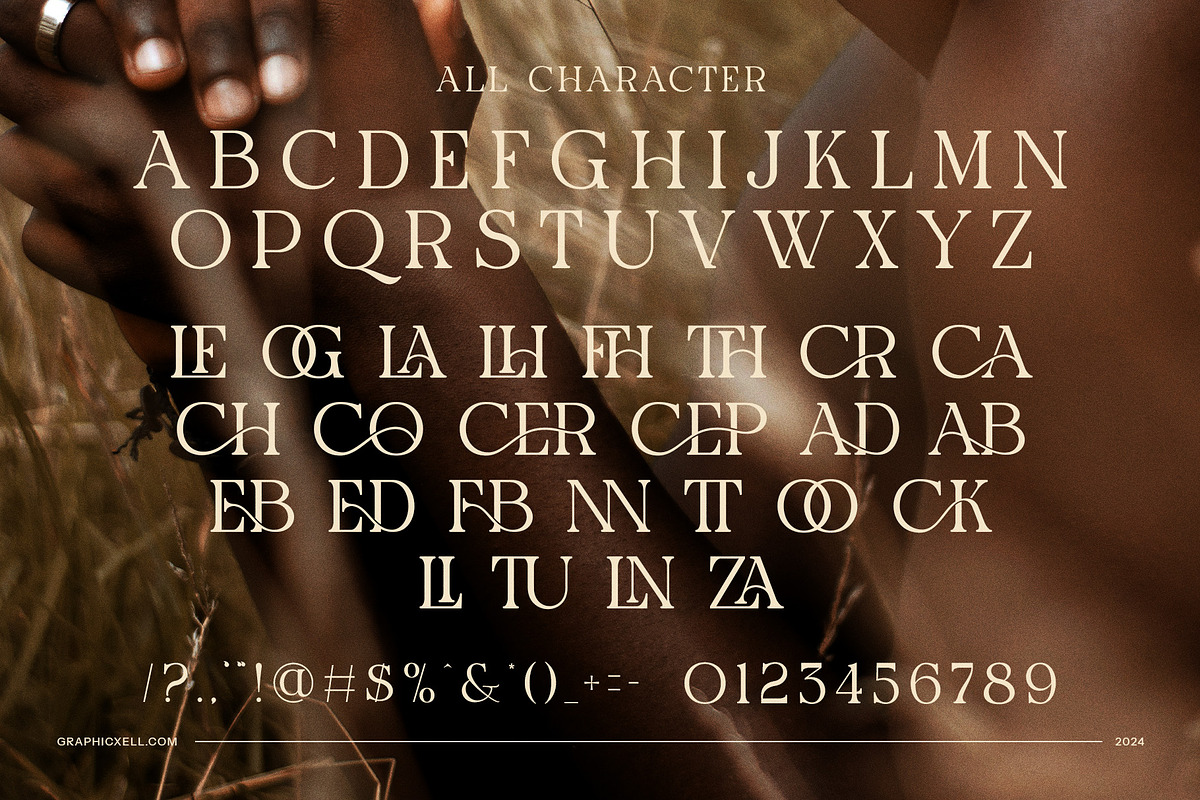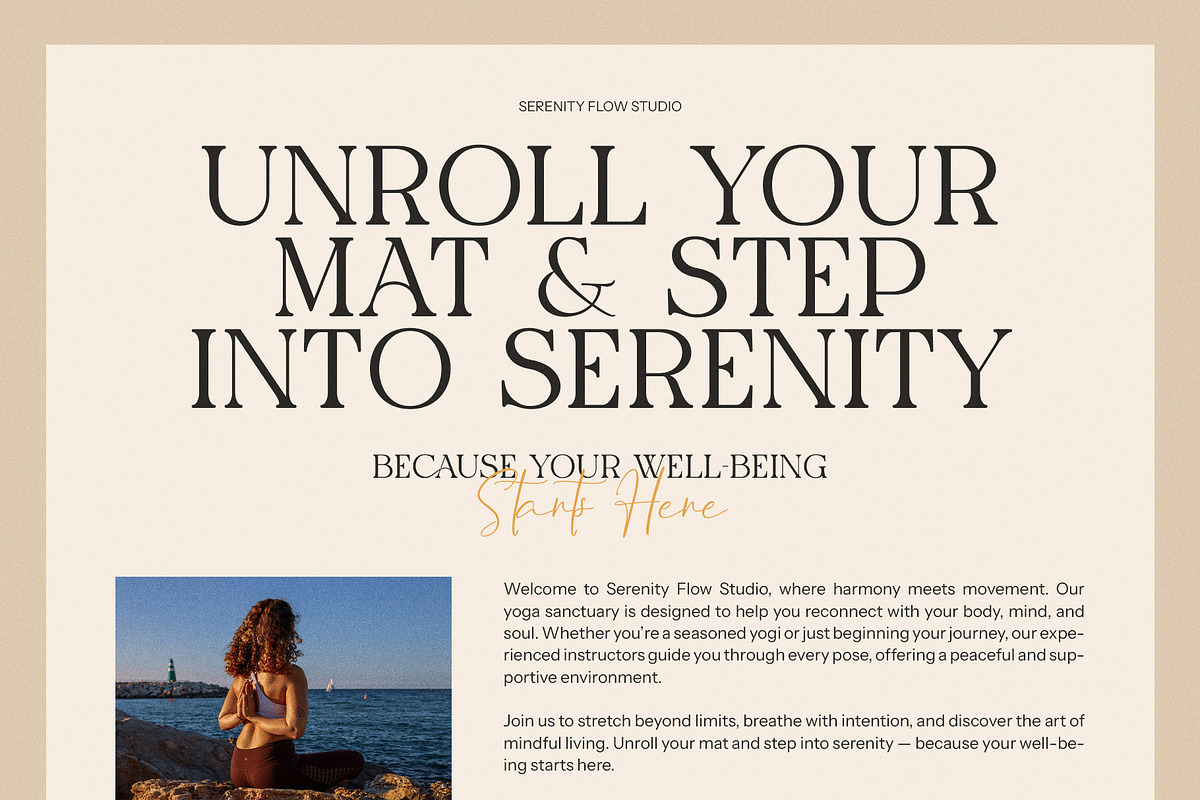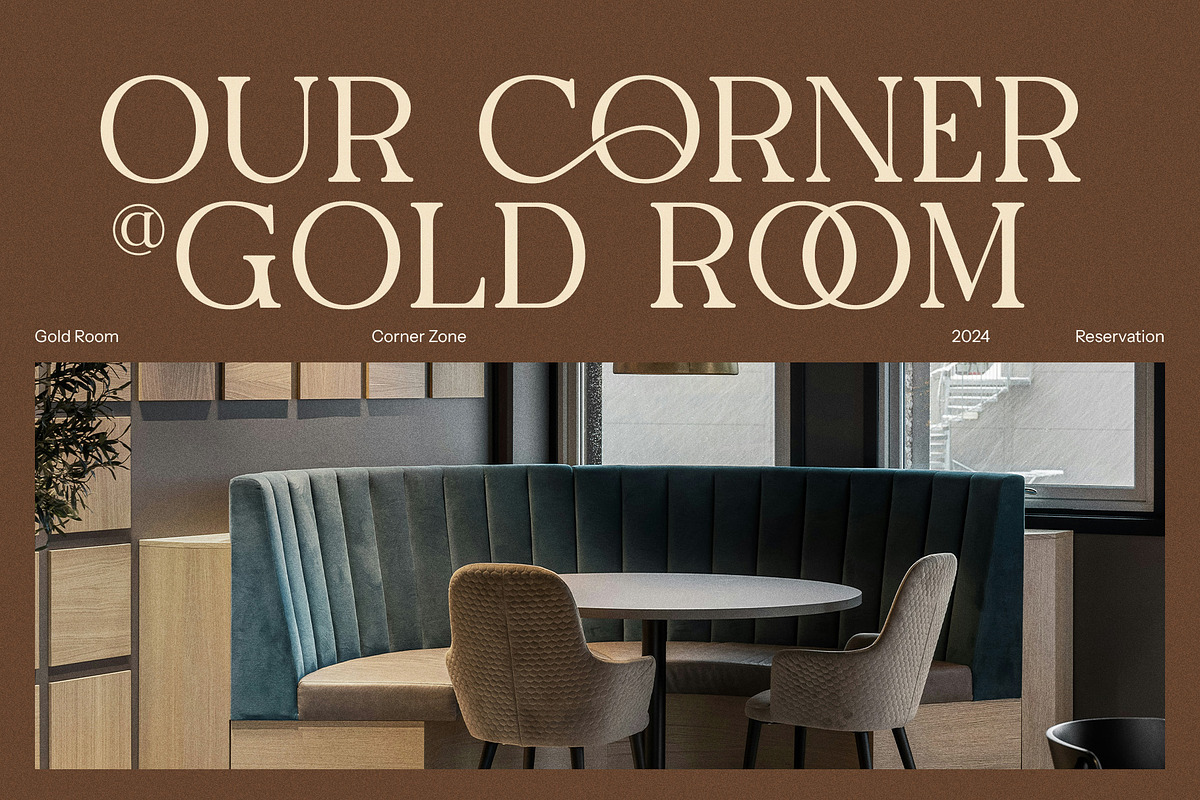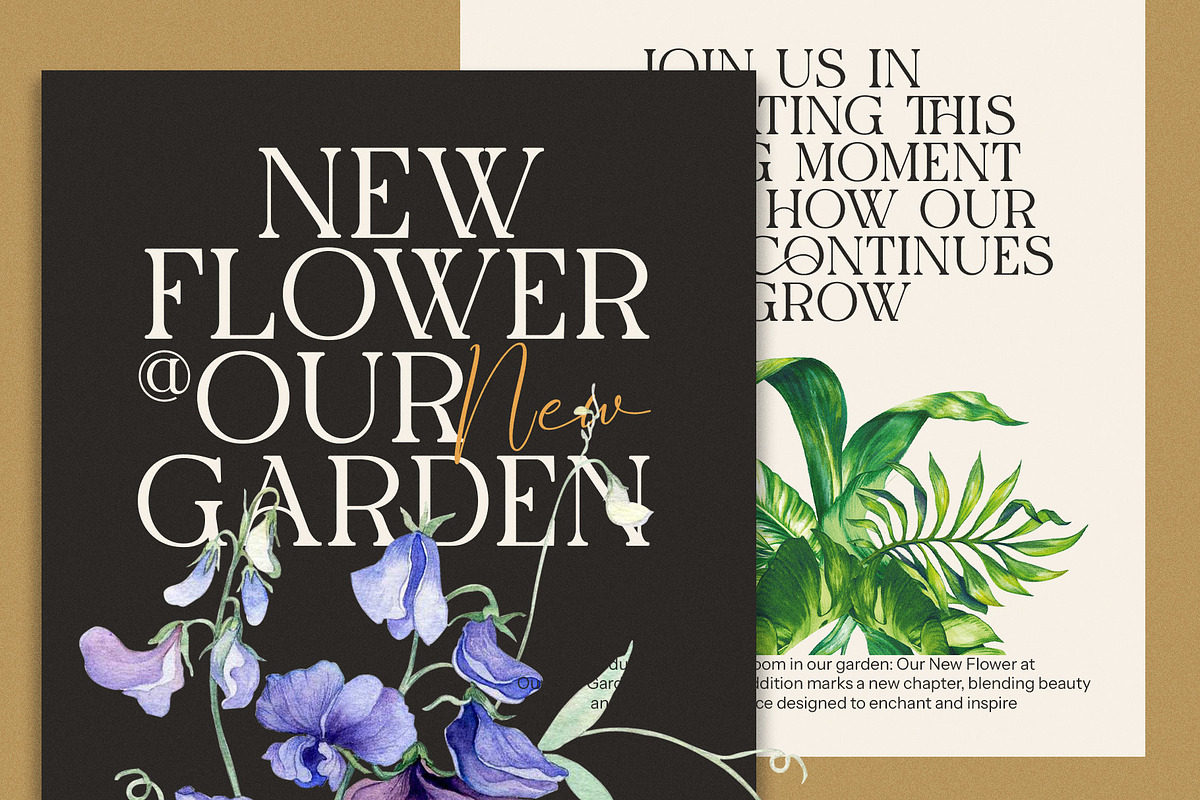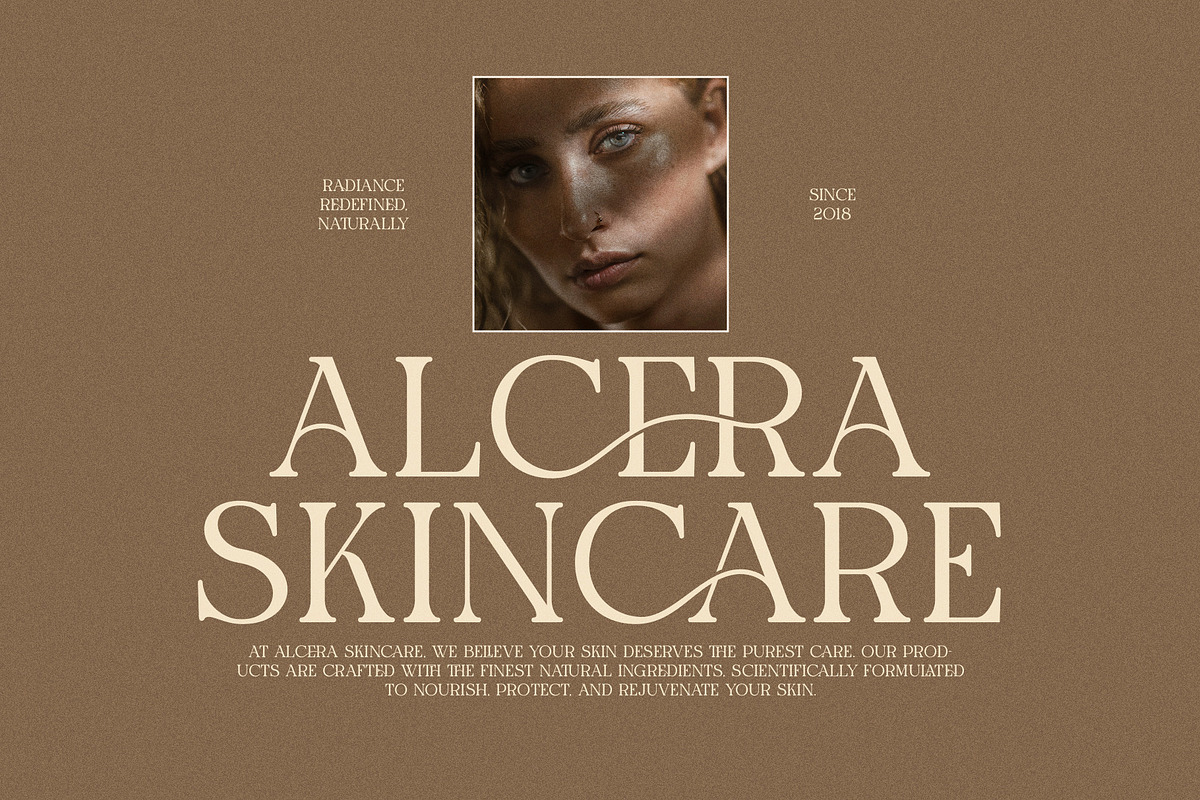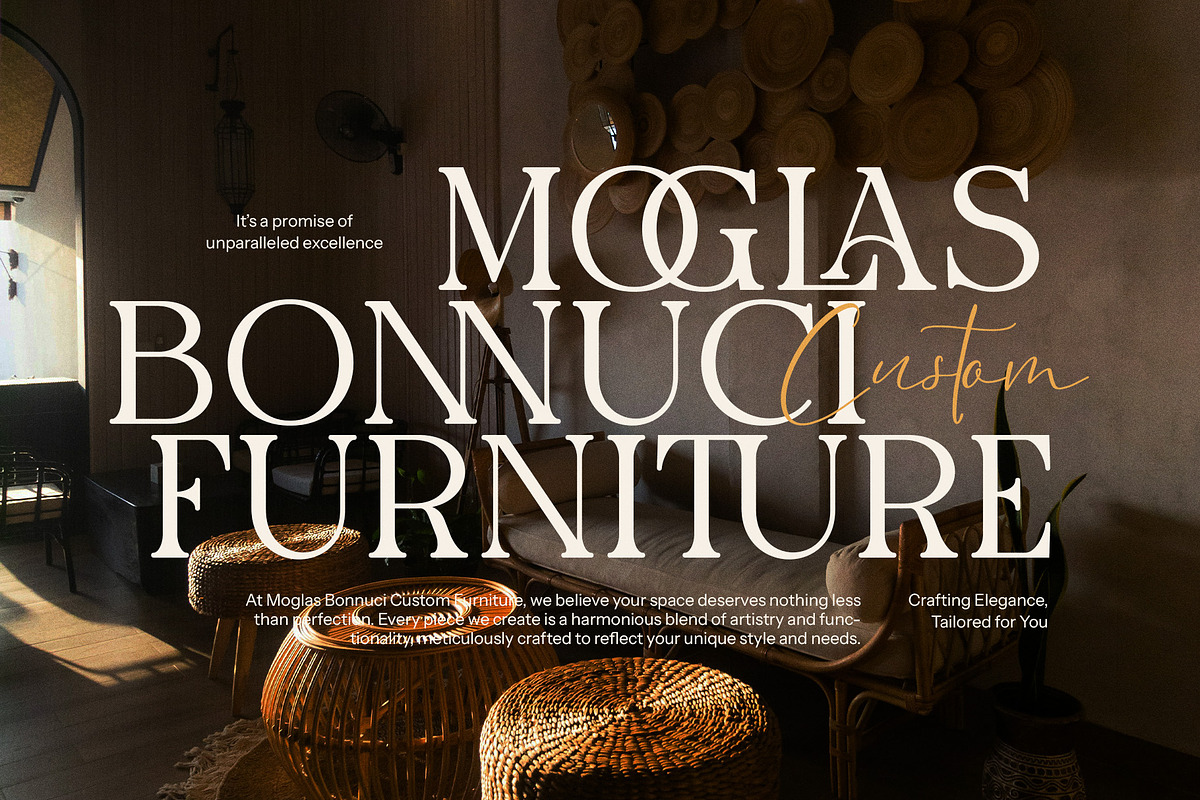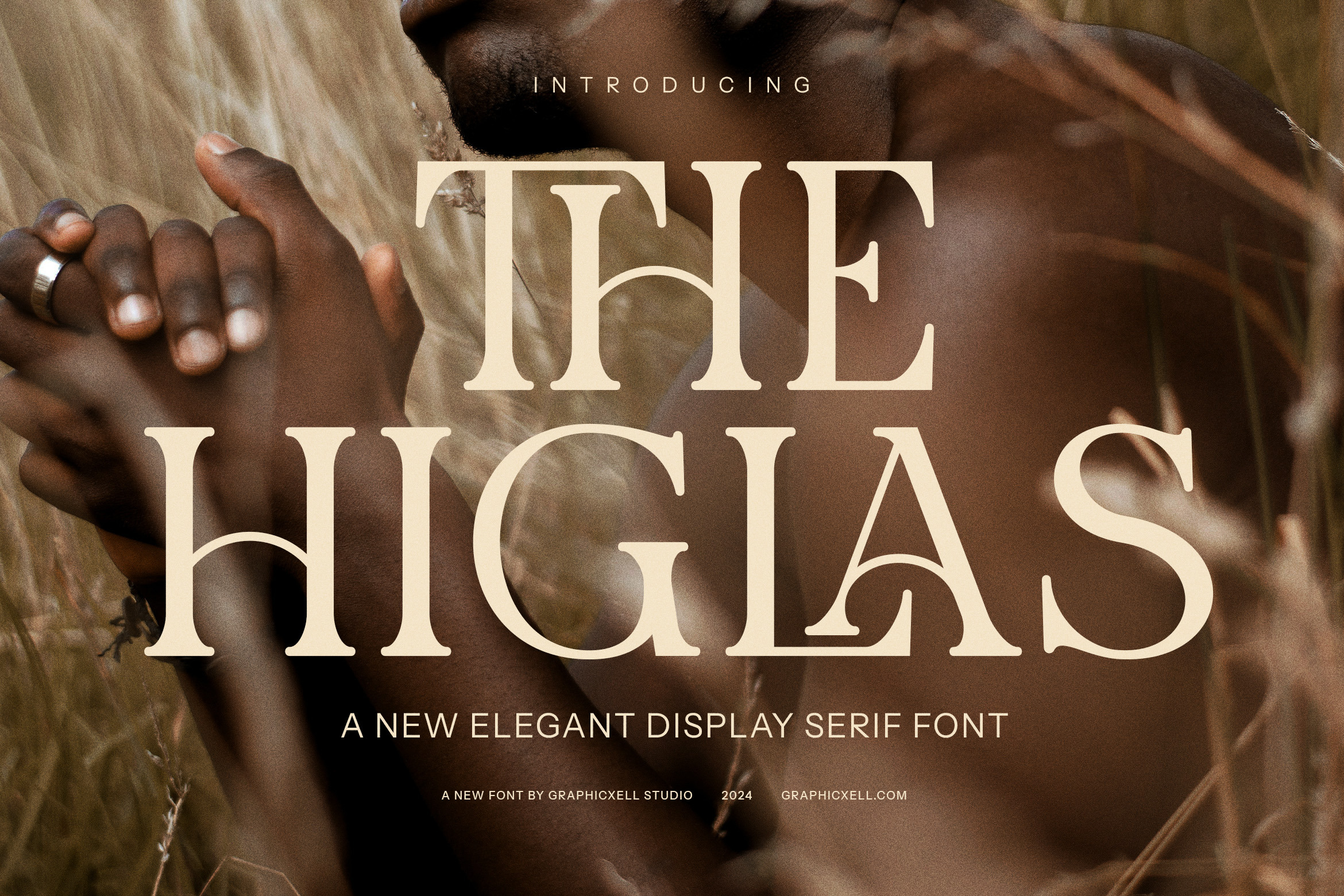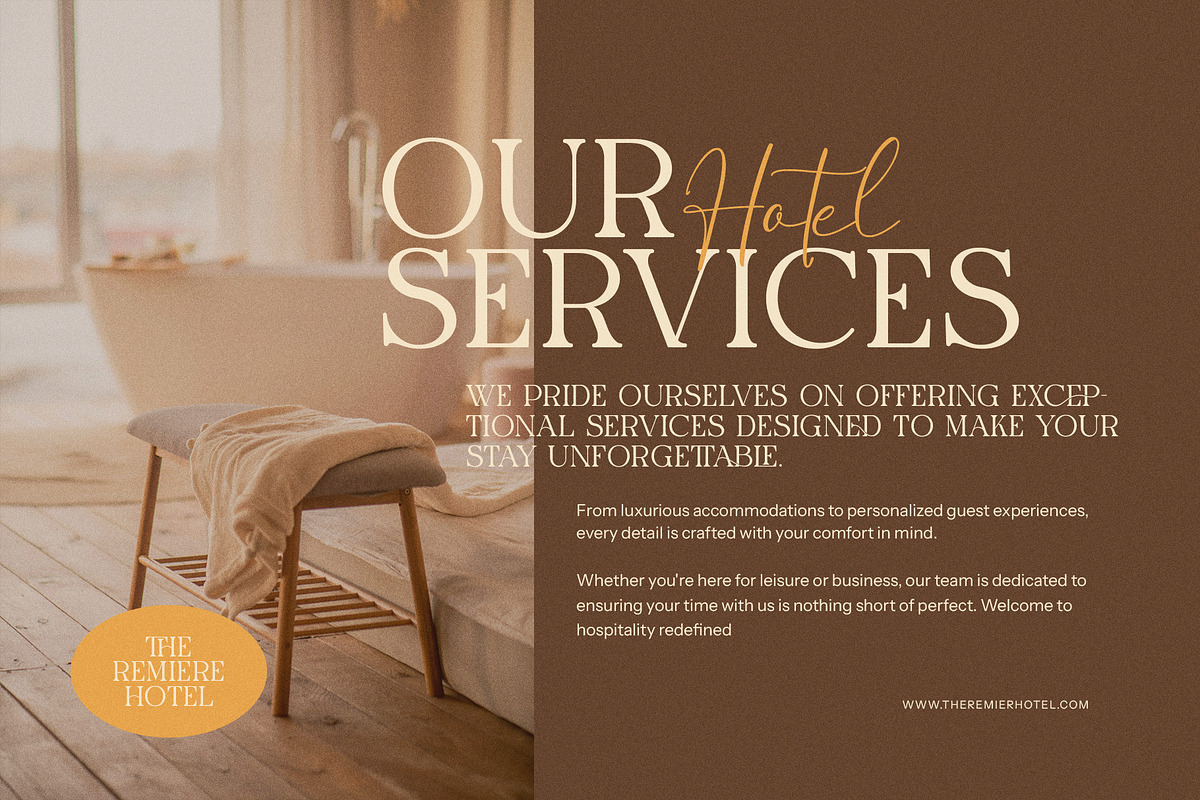
The Higlas Elegant Serif Font
The Higlas Elegant Serif Font is a sophisticated typeface that perfectly balances timeless elegance with modern appeal. Crafted with precision, this font features beautifully refined serifs, carefully designed ligatures, and a variety of alternate characters, making it a versatile choice for designers who appreciate both tradition and innovation. The Higlas is ideal for projects that require a polished, high-end look while maintaining readability and personality.
What sets The Higlas apart from other serif fonts is its meticulous attention to detail. The ligatures are uniquely designed, giving the font an artistic and cohesive flow, while the alternate forms add an extra layer of creativity, allowing designers to experiment with different styles within a single typeface. These distinctive features make it perfect for a range of creative projects, from branding to editorial design.
For businesses looking to create a memorable brand identity, The Higlas delivers an air of sophistication that speaks to quality and luxury. It’s a fantastic option for logos, brand guidelines, and marketing materials that aim to leave a lasting impression. Its clean yet elegant design ensures it stands out in competitive industries such as fashion, beauty, food, and lifestyle brands. Whether used for an upscale boutique, a high-end restaurant, or an elegant product packaging design, The Higlas brings both class and a touch of modernity to any project.
Beyond branding, The Higlas is equally powerful in editorial and website design. Its timeless elegance is well-suited for magazines, brochures, websites, and blogs that aim for a refined, sophisticated look. The font’s legibility and fluidity make it perfect for longer texts, such as articles and reports, while its character and charm still shine through, ensuring it adds beauty to every word.
Moreover, The Higlas excels in advertising and product design. Its balanced letterforms make it equally effective for print and digital applications, from billboards to social media posts. Whether it’s used for product labels, advertisements, or event invitations, this font guarantees that your message will be communicated with style and elegance.
In summary, The Higlas Elegant Serif Font is more than just a typeface—it’s a statement of sophistication and creativity. Its unique ligatures, alternate forms, and versatile design make it the perfect choice for designers who want to elevate their work and create a lasting impact in any field.